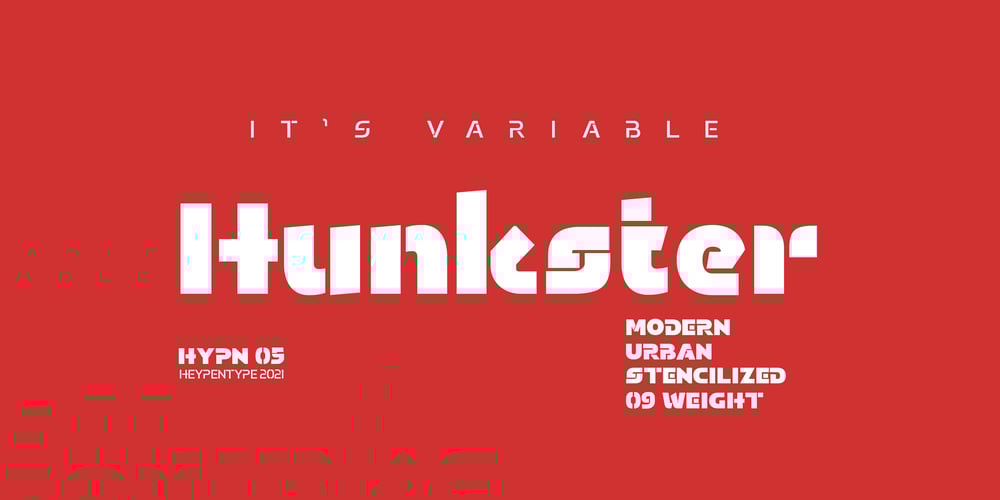
Hunkster
Hunkster font
Hunkster Font Family was designed by Rofiki Anas Maruf and published by Heypentype. Hunkster contains 9 styles and family package options. HUNKSTER is heypentype journey to simplified a stencil fonts. Simplified means it must easy and fast to cut when creating stencil art. Hence, this typeface inspired a lot from stencil arts and fonts right from the beginning of its creations. When a lot of stencil fonts out there used to create political message and self-expression, Hunkster take it beyond that. This typefaces can be applied to anything, from motorsports, branding, logo or logotype, industrial design, products packaging, software, games, website headlines,etc. Whatever it will be used, the spirit of the stencil and street art remains.Include in this typeface family is plenty of ligatures because the nature of stencil and our design aims, easy-to-cut but still beautiful. Most importantly its thrown away an image of stencil fonts bound on military themes. This ligatures will be developed in the future release along with updates on Hunkster variable fonts.